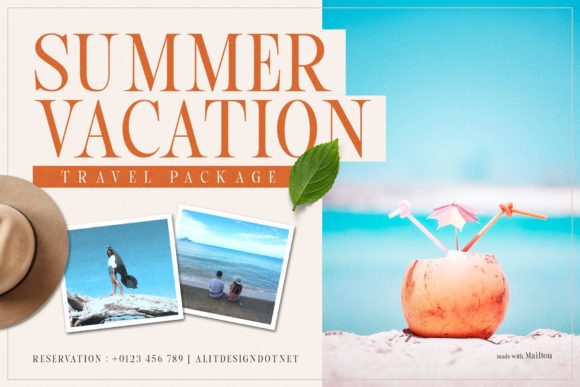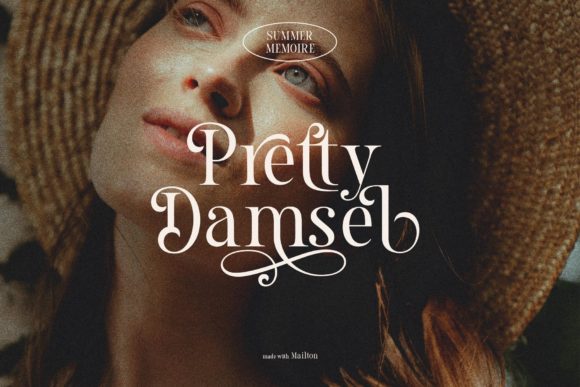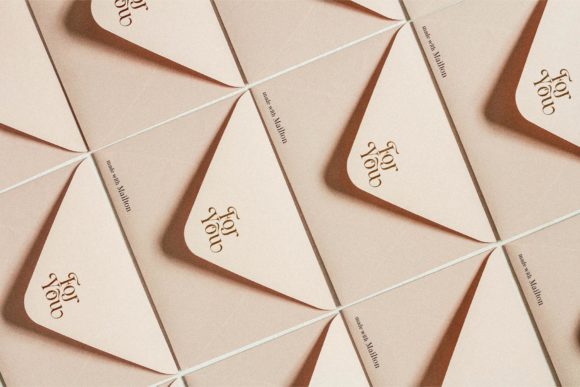
Introduction to Mailton Font
Have you ever been working on a creative project, pouring your heart and soul into it, only to realize that the perfect font is missing? For designers, finding the right font can make all the difference between a good design and a great one. That’s why we’re excited to introduce you to the Mailton Font, a high-quality serif font that’s sure to elevate your creative endeavors.
With its elegant and stylish design, the Mailton Font is perfect for any project that requires a touch of sophistication. Whether you’re working on a brochure, a logo, or a website, this font is sure to impress. And the best part? It’s available for free download, making it a valuable resource for designers of all levels.
One of the standout features of the Mailton Font is its transparent background, which allows you to easily combine it with other design elements. Plus, its PUA encoding means that you can access all of the glyphs and swashes with ease, giving you endless possibilities for creativity.
Key Features of Mailton Font
- High-quality design for creative projects, ideal for use in brochures, posters, and other design resources.
- Comes in a transparent background, making it versatile for use on various backgrounds.
- Includes a range of characters, including uppercase and lowercase letters, numbers, and special characters, making it a comprehensive design resource.
- Designed with a high resolution of 300 DPI, ensuring crisp and clear text, even when scaled up or down.
- Perfect for use in various design projects, from business cards to large-scale posters, and everything in between.
Honest Review: Mailton Font
I recently had the chance to work with the Mailton Font, and I must say it’s a solid addition to any designer’s toolkit. This high-quality font is perfect for creative projects that require a clean, modern look.
- ✨ The Mailton Font features a transparent background, making it easy to work with and customize to fit any design project.
- ✨ The Mailton Font is highly versatile and works well in a variety of design applications, from digital displays to print materials.
One thing to keep in mind is that the Mailton Font may not be suitable for every project. ⚠️ The font is a bit on the minimalist side, which may limit its use in more complex or ornate designs.
Overall, I’m impressed with the Mailton Font and would recommend it to any designer looking for a reliable, high-quality design resource. Its ease of use and versatility make it a great choice for a wide range of creative projects.
The Mailton Font is a high-quality, free download that can elevate any creative project. Its unique design makes it perfect for various applications.
To get the most out of the Mailton Font, use it in combination with other design elements, such as images and graphics. Experiment with different font sizes and colors to create a unique look.
The Mailton Font is commonly used in creative projects, such as graphic design, digital art, and web design. Its unique design makes it perfect for creating eye-catching graphics and illustrations.